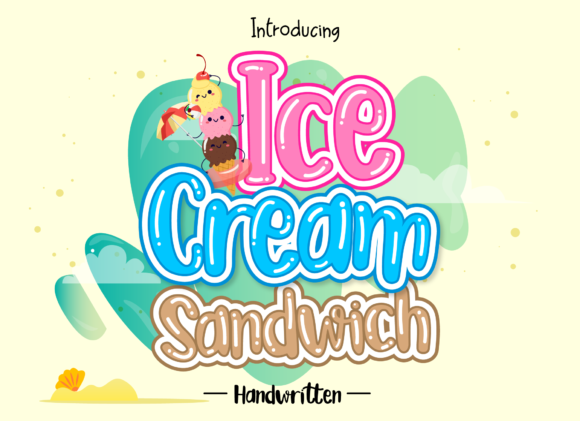
Journey into a popsicle paradise, where sugary swirls dance across your screen! Ice Cream Sandwich Font is a whimsical and playful script font that will add a touch of scrumptious charm to your creative concoctions. Its sugary strokes evoke the carefree days of childhood, licking ice cream cones under the summer sun.
Imagine your designs dripping with bold colors and dripping with sweetness. Ice Cream Sandwich Font is the perfect ingredient for invitations, logos, posters, and any project that calls for a sprinkle of fun. Picture your words dancing across the page, as if written with a popsicle stick dipped in rainbow sherbet. The font's unique loops and swirls will make your designs pop, and its lowercase letters add a touch of whimsy that will captivate your audience.
Dive into a world of sweetness and let Ice Cream Sandwich Font transform your designs into delectable treats. Its cheerful personality will add a dash of delight to every project, leaving your audience craving more. So, grab your sprinkles and get ready to whip up some typographic magic!